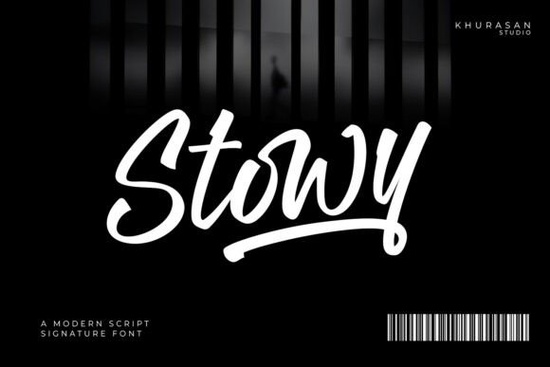
The Stowy Font is a script handwriting typeface with a natural brush effect that looks genuinely hand-lettered. If you need a font that feels warm, personal, and full of character for your next design project, Stowy is worth a close look. It works beautifully across logos, packaging, social media graphics, wedding stationery, and creative quotes.
What Makes the Stowy Font Look So Natural?
Stowy stands out because of its flowing brush texture. Every letter connects smoothly to the next, creating a sense of movement that mimics real pen-on-paper lettering. The strokes have subtle weight variations thinner on the upstrokes, bolder on the downstrokes which is exactly how a brush or calligraphy pen behaves in real life.
This kind of detail matters. A lot of script fonts look stiff or overly digital. Stowy avoids that problem. The result is text that feels human and expressive, not like it was generated by software.
Who Is the Stowy Font Best For?
Stowy works well for a wide range of creative professionals and hobbyists:
- Print-on-demand sellers who want distinctive typography for t-shirts, mugs, and tote bags
- Small business owners building brand identity through logos and product labels
- Wedding designers creating invitations, menus, and signage with an elegant, personal feel
- Social media creators who want quote graphics and story posts that stand out in a feed
- Crafters and hobbyists working on Cricut or Silhouette projects at home
Because it's a script font with brush styling, it pairs nicely with clean sans-serif fonts for contrast. Use Stowy for headlines or accent text, then pair it with a simple body font for readability.
Where Can You Use a Brush Script Font Like Stowy?
Here are some practical applications where Stowy really shines:
- Logo design especially for boutique shops, beauty brands, and food businesses
- Product packaging labels, boxes, and tags that need a handmade look
- Quotes and typography art wall prints, greeting cards, and digital downloads
- Social media posts Instagram stories, Pinterest pins, and Facebook banners
- Wedding stationery save-the-dates, programs, and thank-you cards
- Website headers and hero sections adding personality to landing pages
How Does Stowy Compare to Other Script Fonts?
If you're browsing Creative Fabrica's script font collection, you'll find plenty of options. Here's how Stowy fits alongside some popular alternatives:
If you prefer a more playful and bouncy style, Loopzy has a fun, casual energy that works great for kids' products and lighthearted branding. For something more refined and sophisticated, Grace Brilliant brings an elegant calligraphic touch suited for luxury branding and formal invitations.
Designers who want a decorative flair might enjoy Curlicue, which features ornate swirl details. Meanwhile, The Bileso takes a bolder, more dramatic approach to script lettering. And if you need something with vintage warmth, Scarlett delivers a classic handwritten feel.
Stowy sits in a sweet spot it's expressive without being overdone, and natural without sacrificing readability. That balance is hard to find.
Tips for Getting the Most Out of Stowy
Here are a few practical suggestions for working with this brush script font:
- Size it generously. Script fonts with brush details show their best character at larger sizes. Avoid using Stowy for body text or anything below 16px.
- Watch your letter spacing. The natural connections between letters mean you may need to adjust kerning, especially for logo work.
- Choose the right background. A textured or slightly off-white background enhances the hand-lettered feel.
- Test it in context. Before committing to a design, preview Stowy with your actual text some letter combinations in script fonts can look different than expected.
Is Stowy Worth Adding to Your Font Collection?
If you regularly work on projects that call for a handwritten, brush-style script, Stowy is a solid choice. It fills that need for authentic, expressive lettering without looking messy or hard to read. Whether you're designing a product label, a wedding invitation, or a social media post, it brings a personal touch that generic fonts simply can't match.